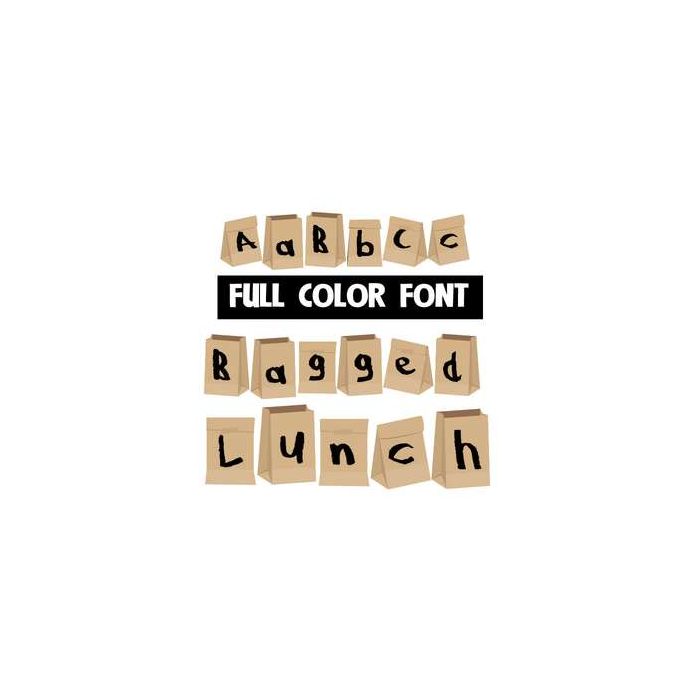
This full-color font features letters on paperbags. This font works best for titles, displays, posters and more. Please note color fonts will show as black in non compatible programs. This font type is compatible with Silhouette Studio.